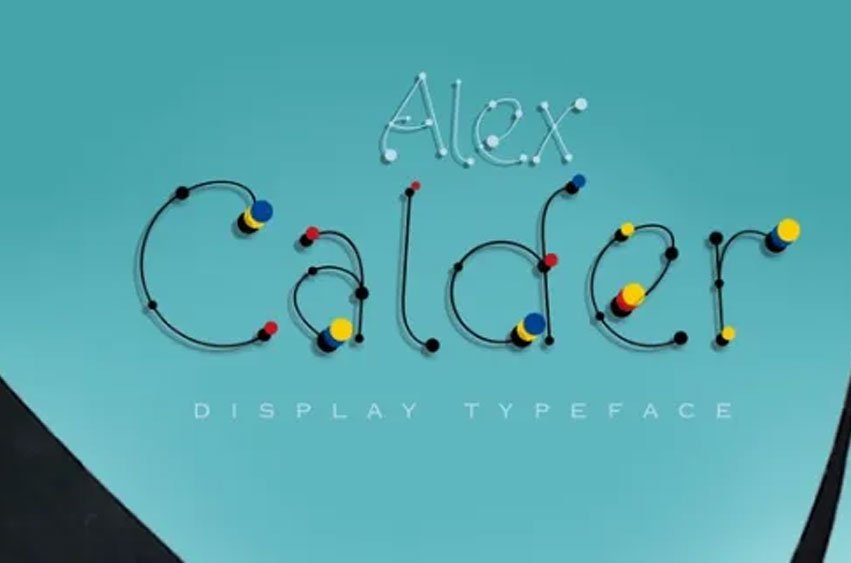
Alex Calder Font
Alex Calder Font I’m keep making fonts inspired by great artists.
This one is dedicated to Alexander Calder, who was working on kinetic sculptures. 2 styles: Calder regular and Calder dots.